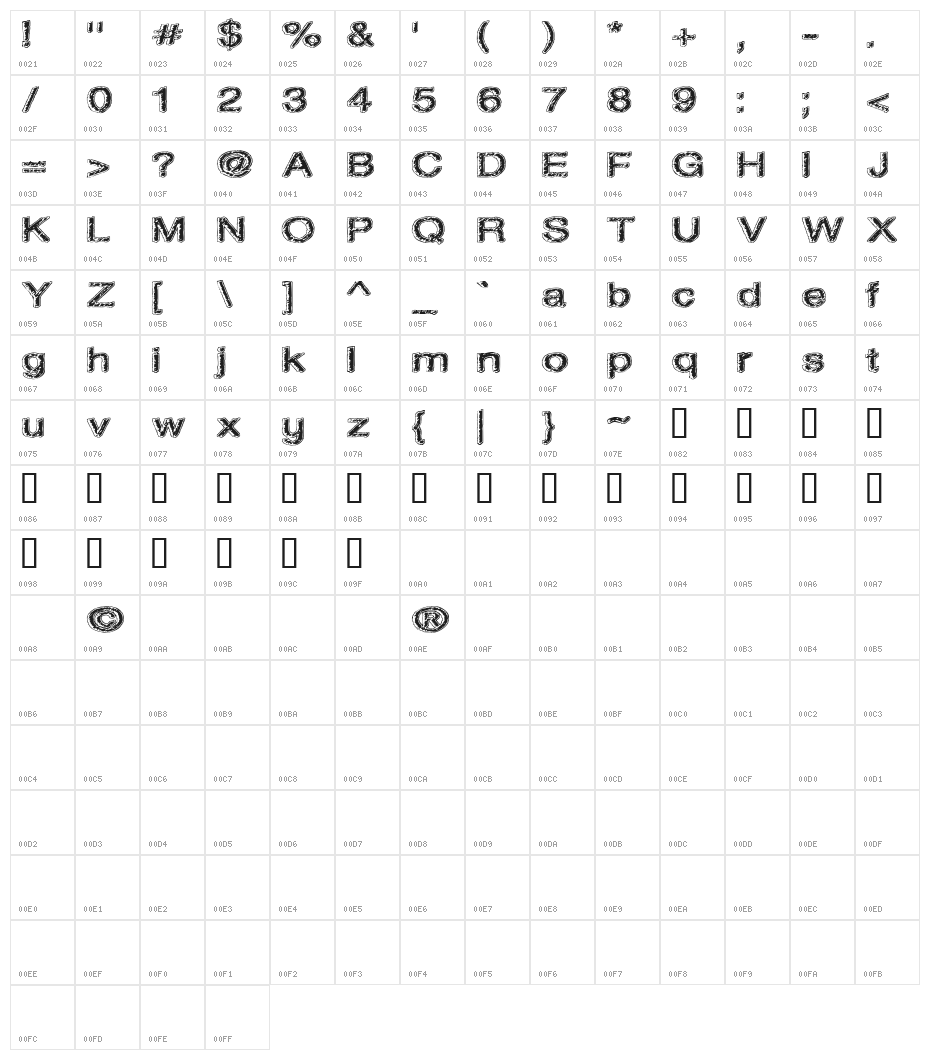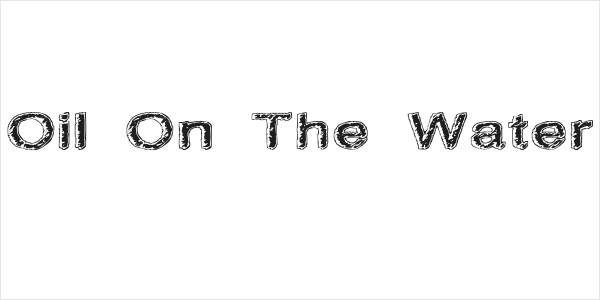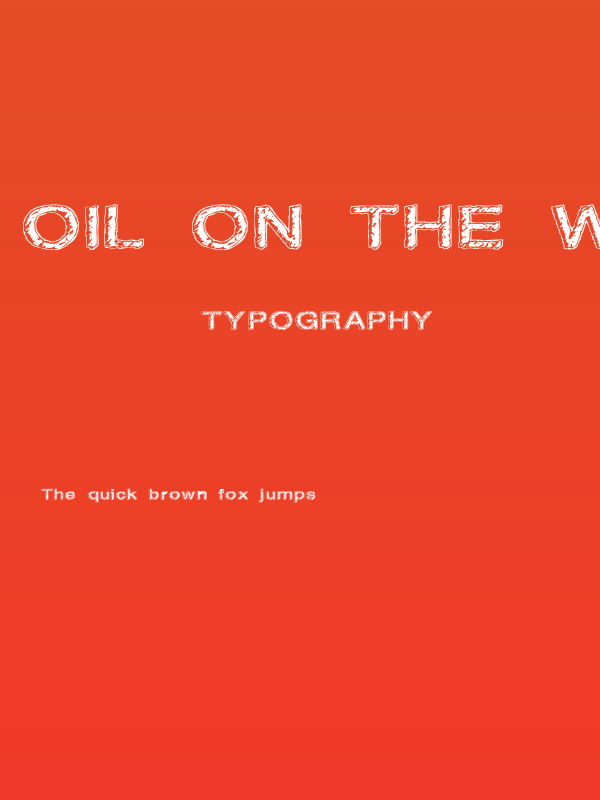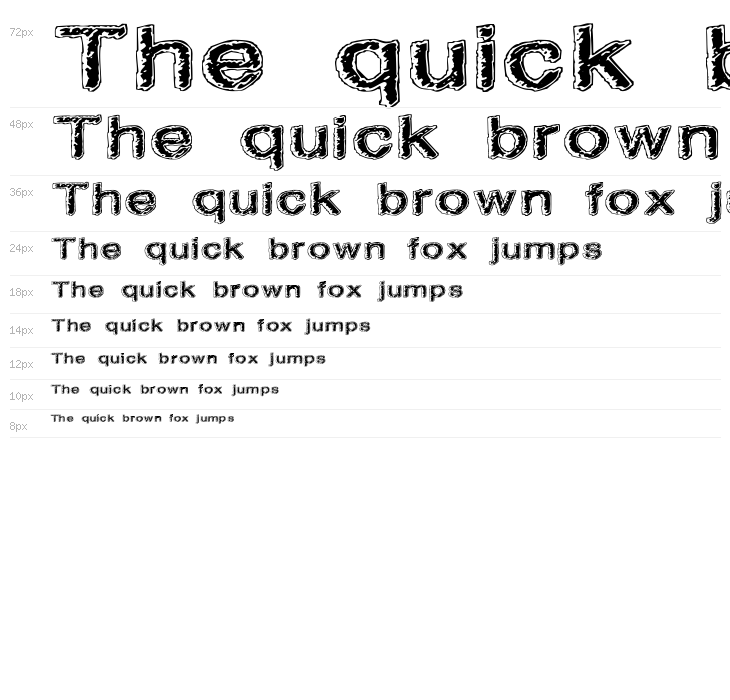
Oil On The Water Font
Oil On The Water Description
This font features a unique, textured design reminiscent of oil on water, with a bold and artistic flair. The characters are outlined with a rough, uneven edge that gives a sense of movement and fluidity. Each letter and number appears as if it has been hand-drawn, with a slightly distressed look that adds depth and character. The font maintains a consistent weight throughout, providing a strong visual impact. Its distinctive style makes it stand out, suitable for creative and artistic projects where a bold statement is desired.
| Overall Style | Artistic, Textured |
| Proposed Projects | Ideal for posters, album covers, artistic branding, and creative advertising. |